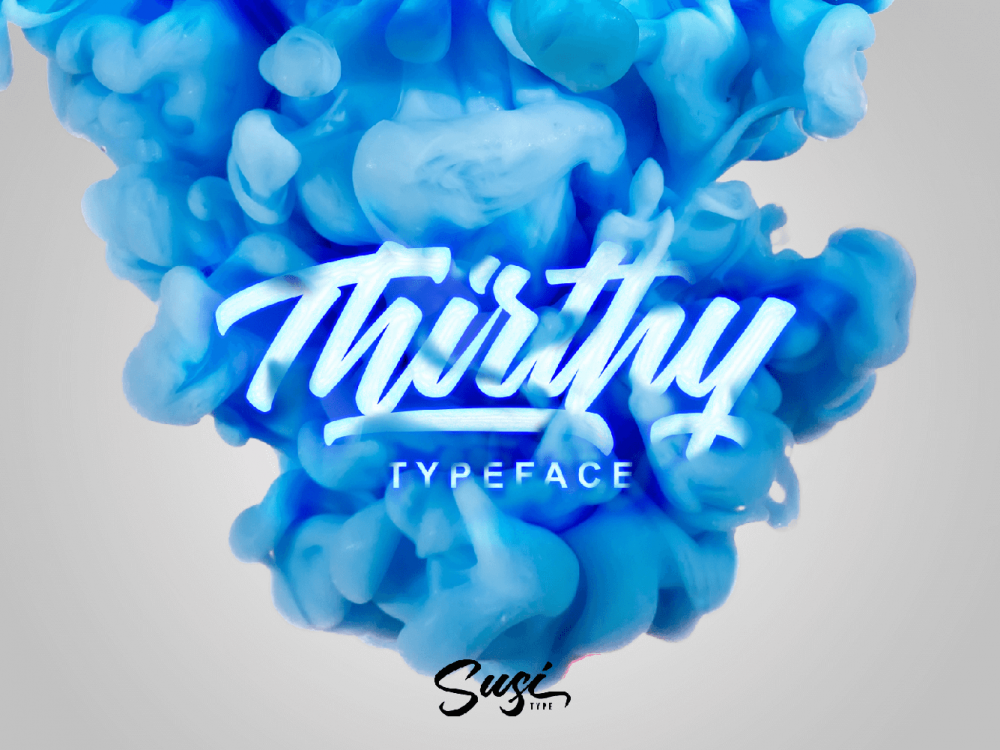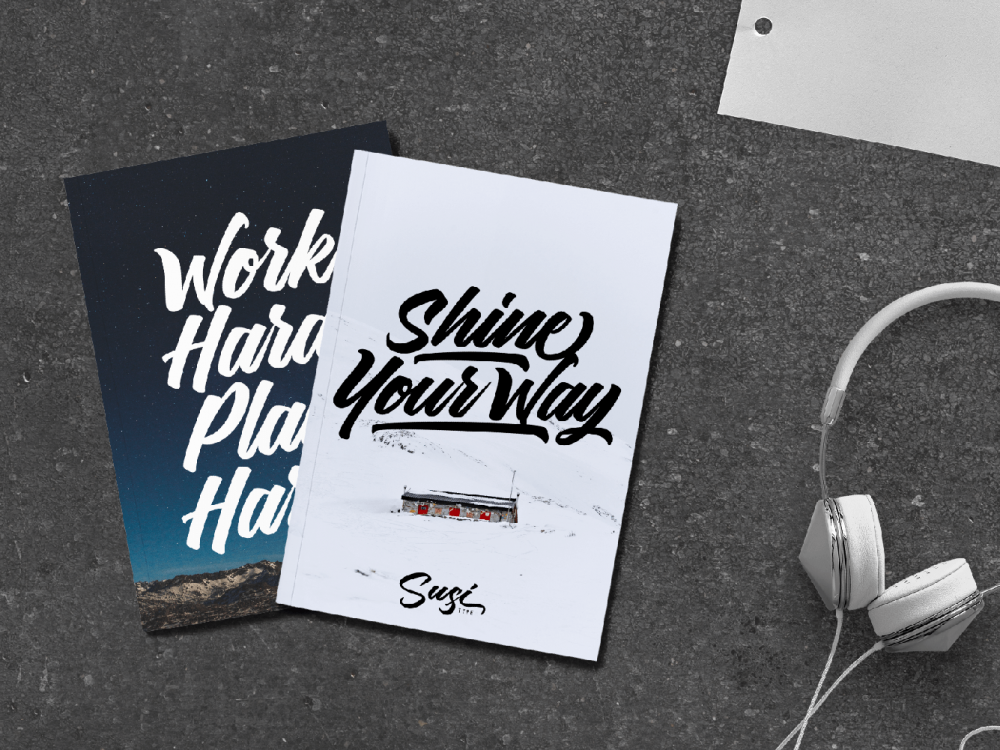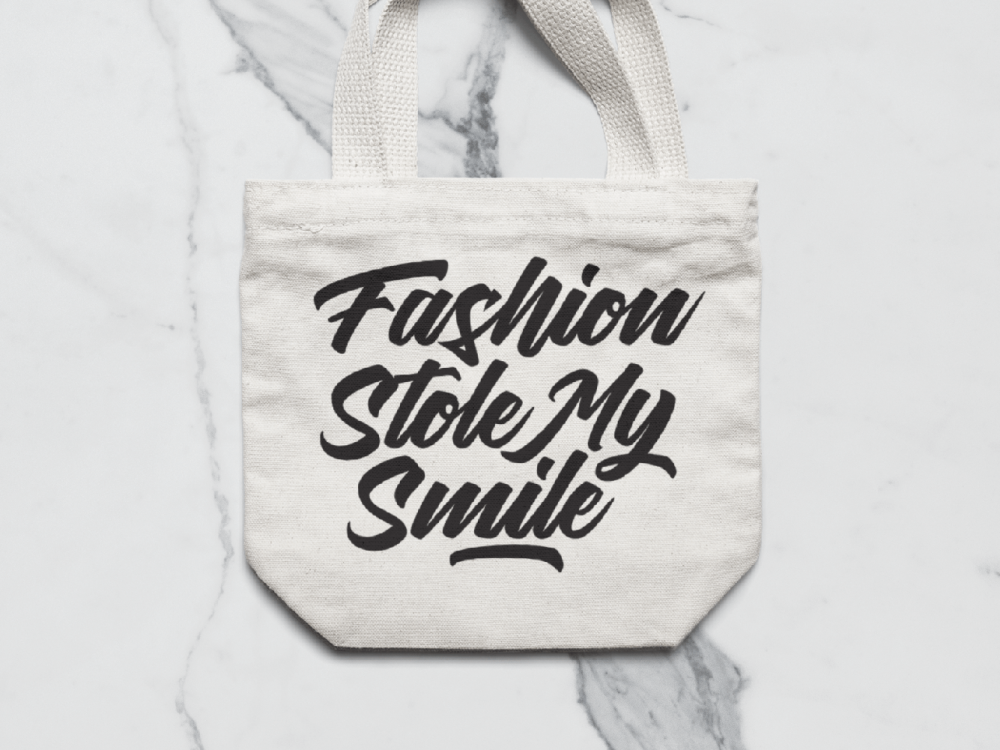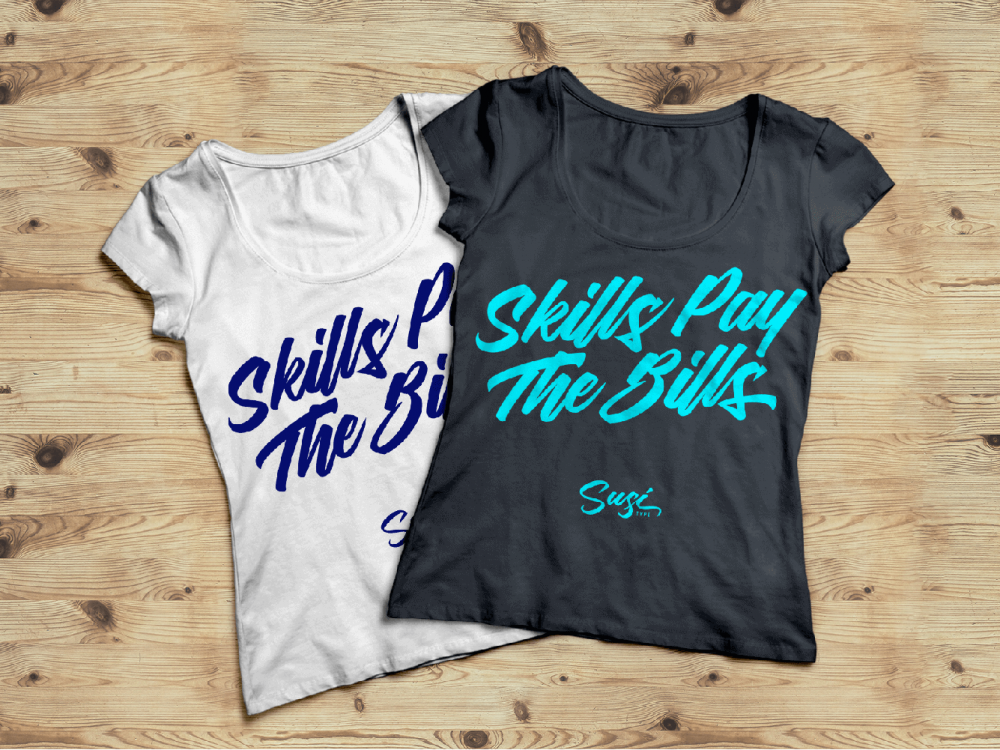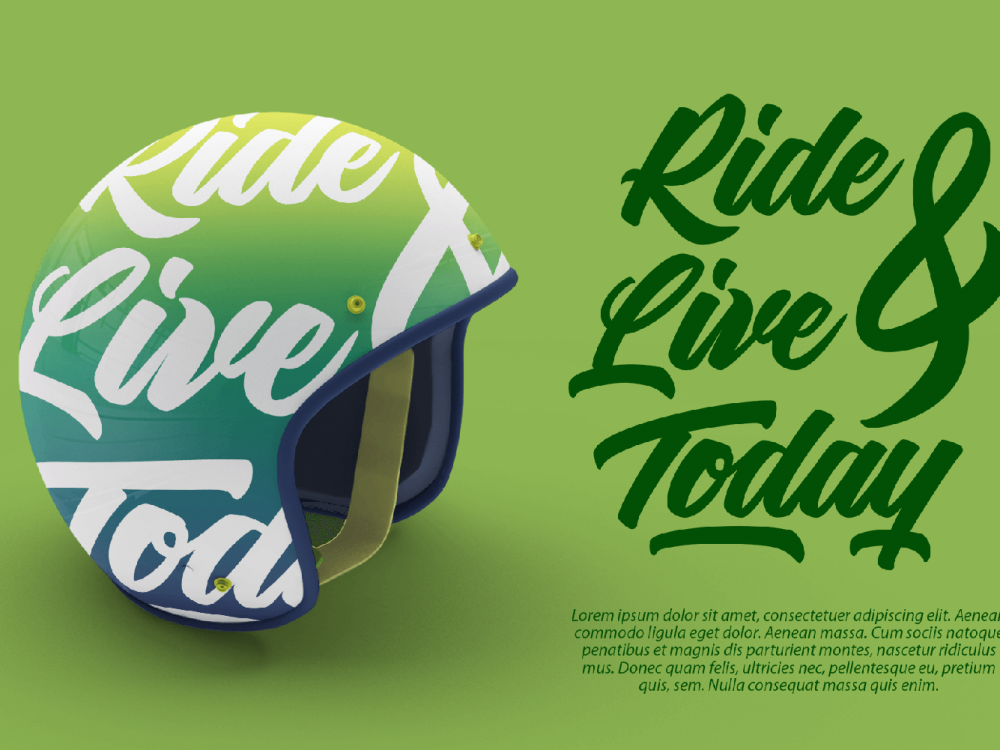
Thirthy Free Font
Thirthy Free Font is a modern bold handwritten typeface with an interesting calligraphic style. This font is very suitable for creating various projects that require a scripted handwritten font. You can use this font to create memorable romantic posters, wedding invitations, greeting cards, branding, flyers, t-shirt and pillow prints, and more. If you like it don’t forget to check out the full version.